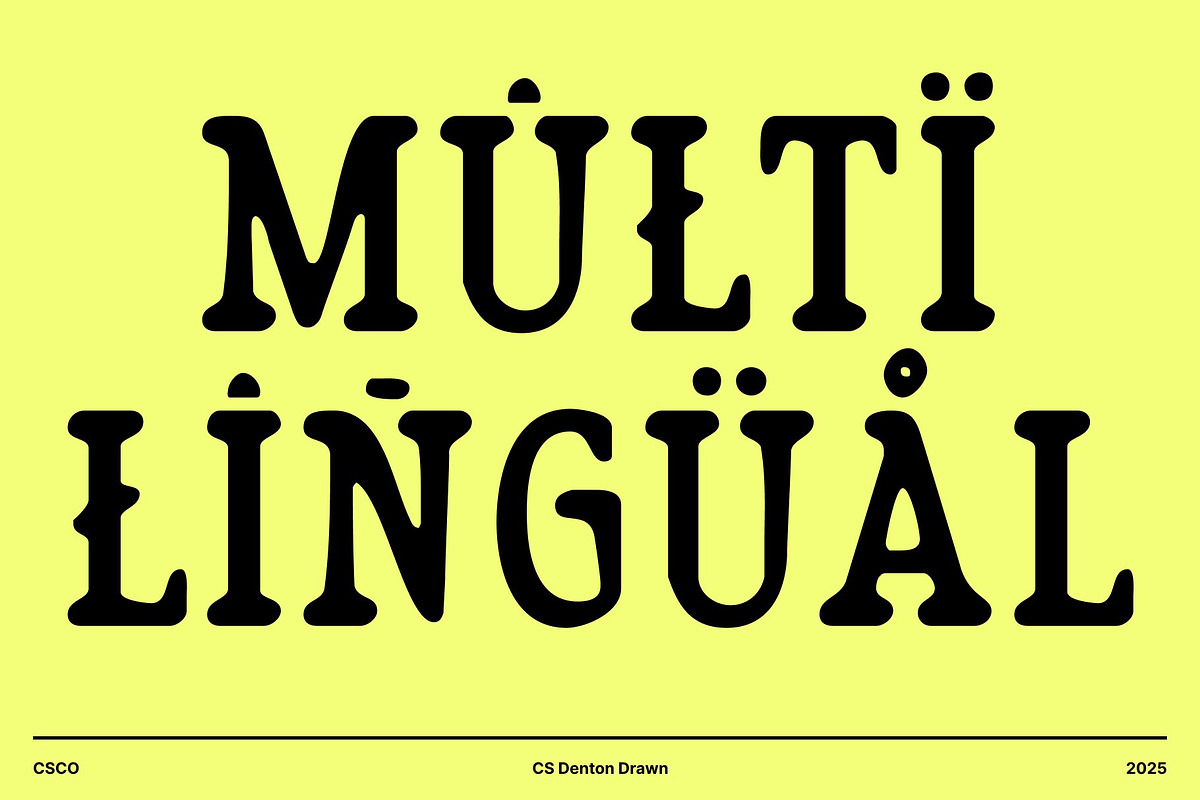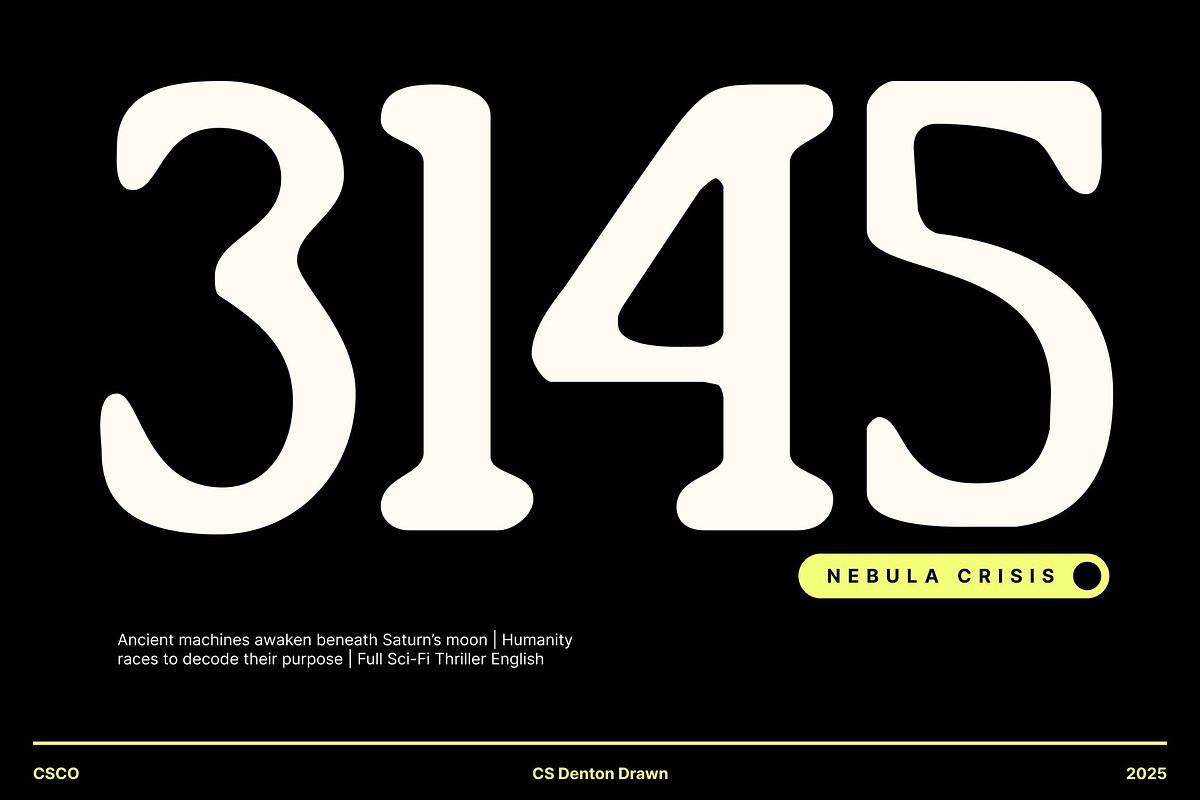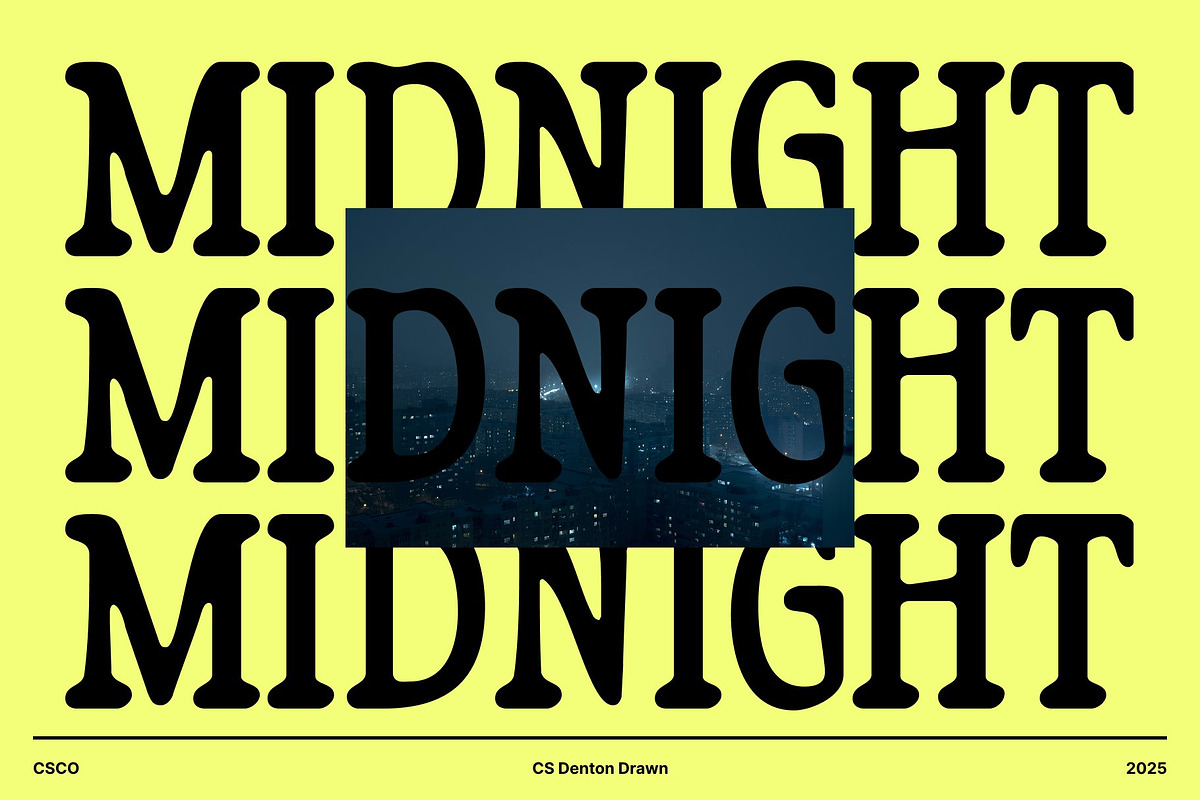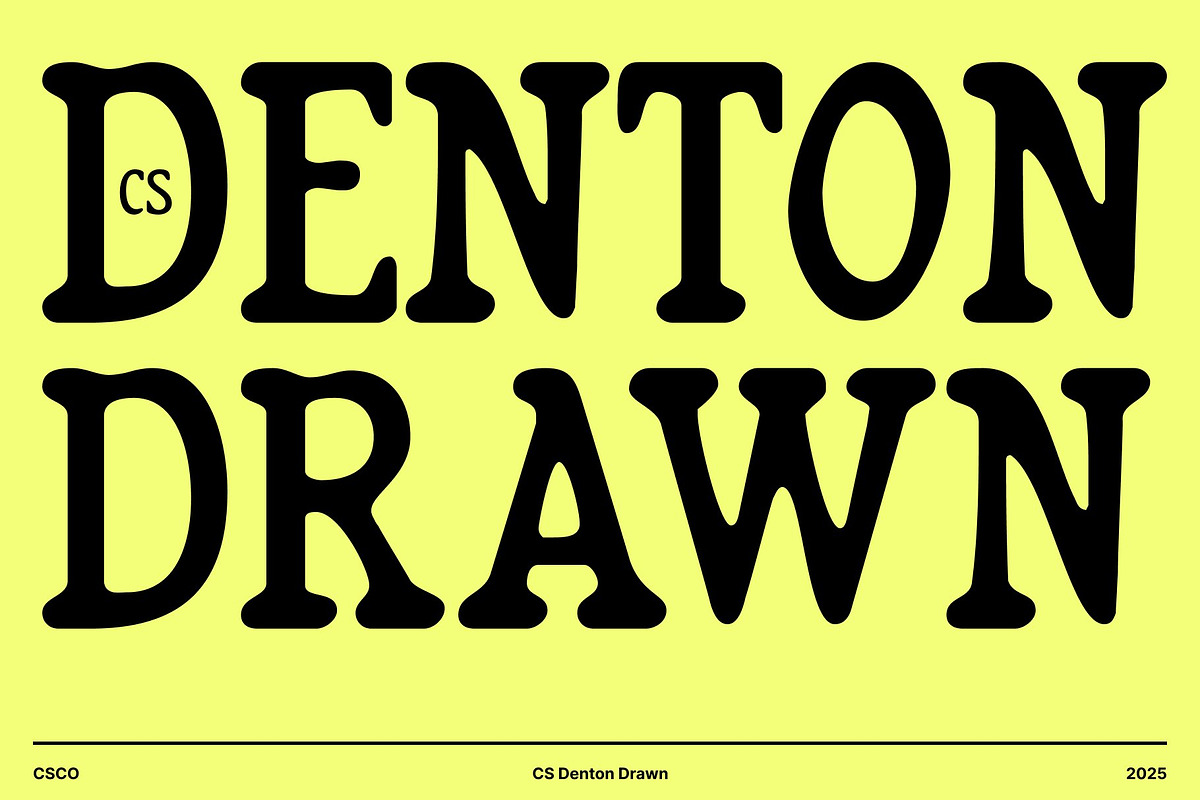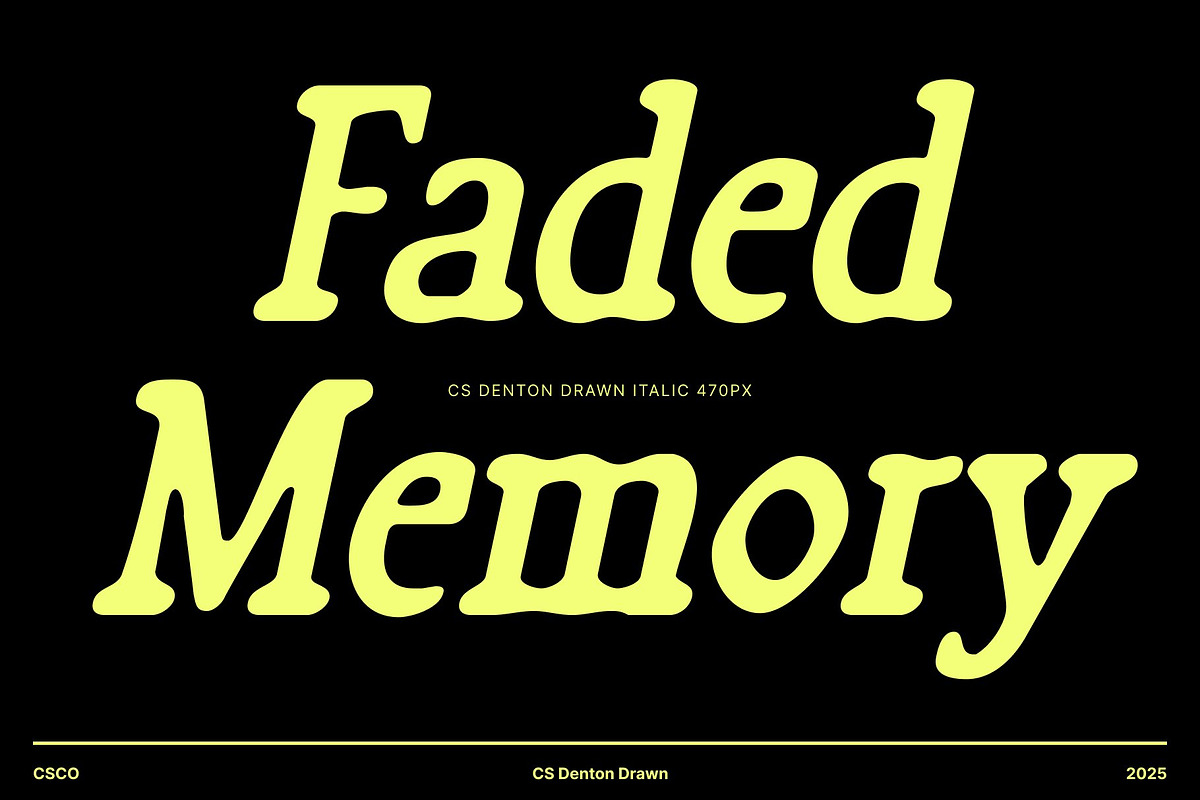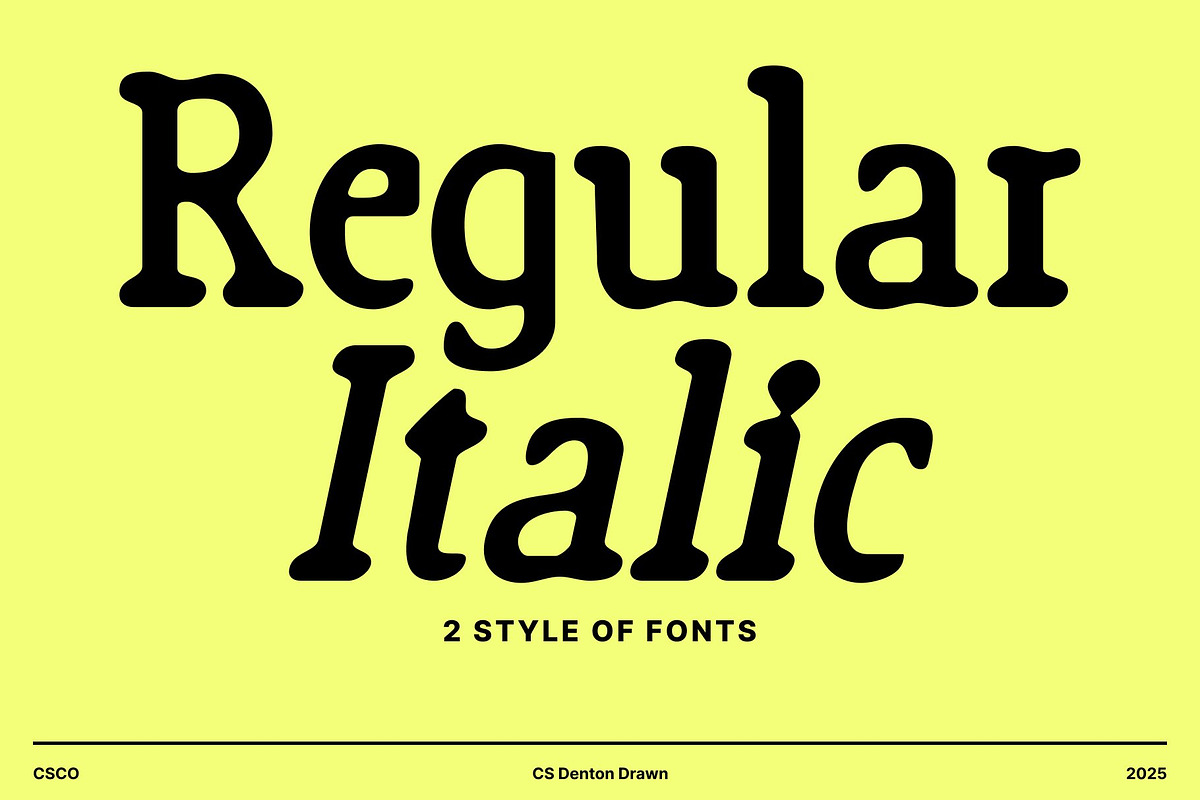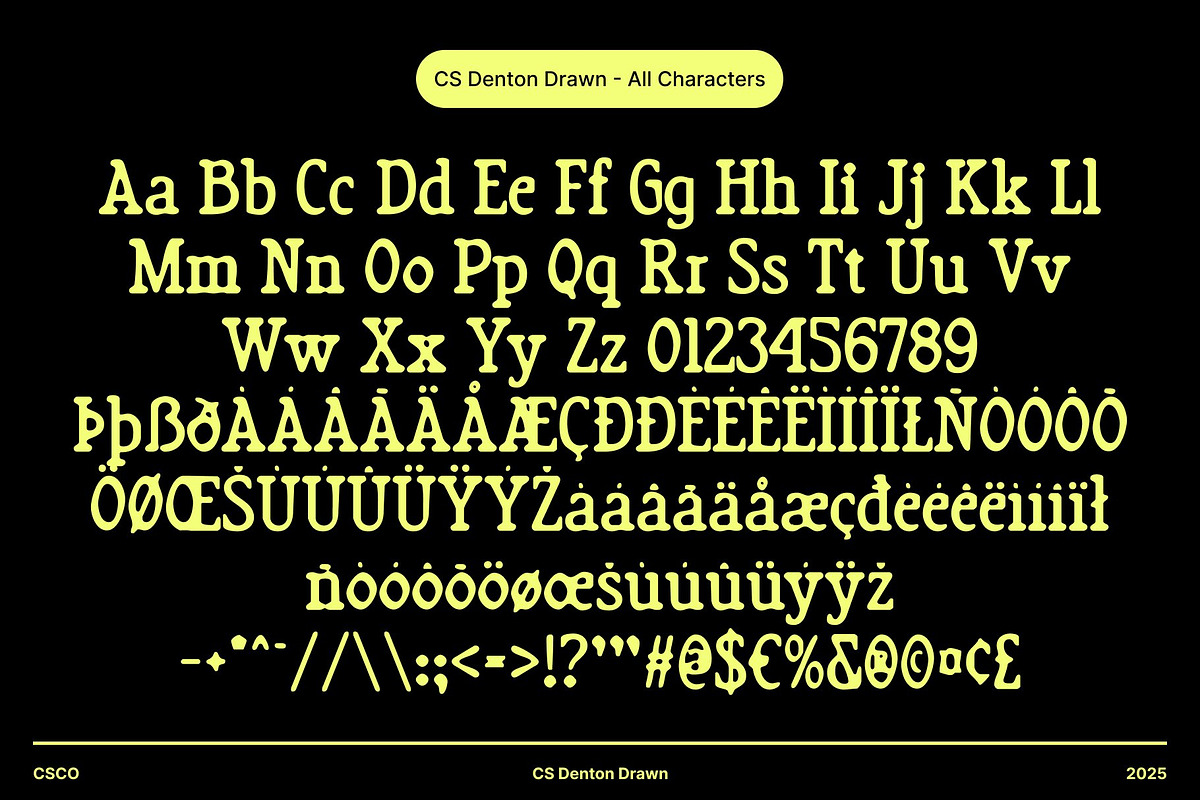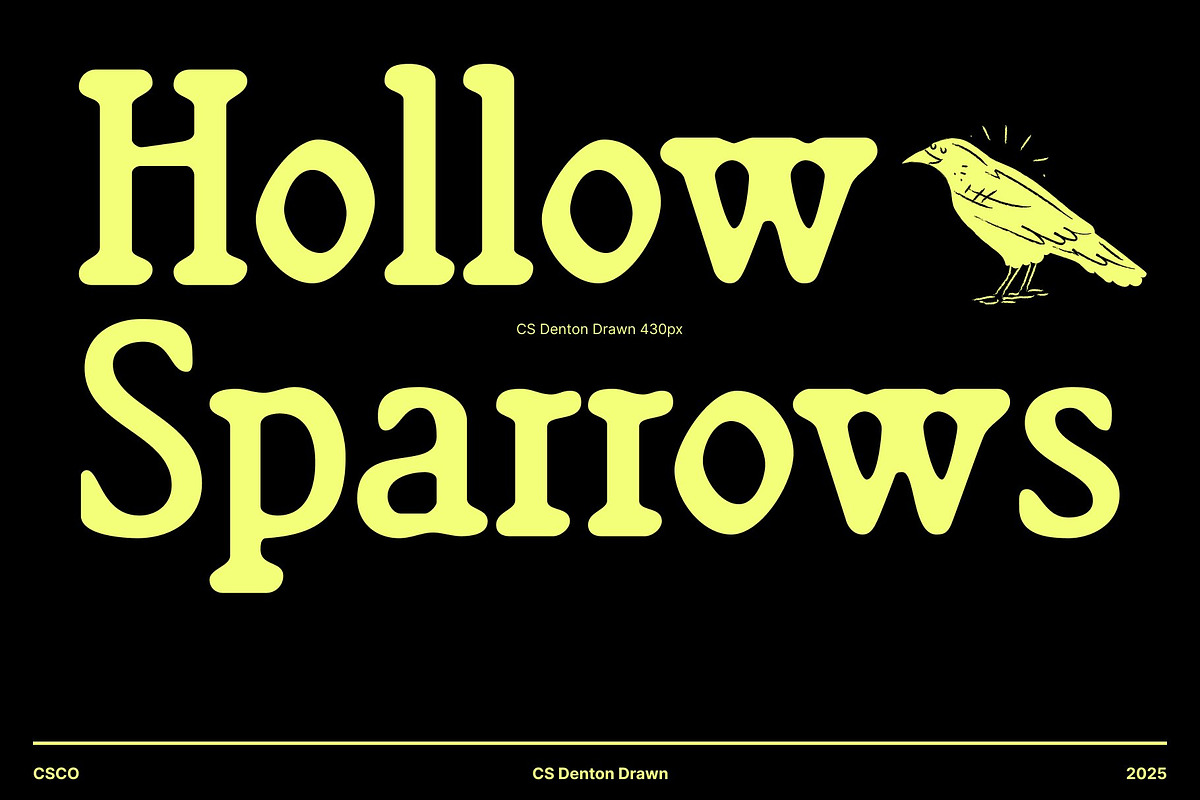
CS Denton Drawn
CS Denton Drawn – Soft Serif with Modern Warmth and Hand-Drawn Texture
Soft Curves for a Modern, Stylish Aesthetic This is a soft serif font designed to bring warmth, charm, and modern style to any visual project. Its smooth curves and rounded serif details create a gentle, inviting appearance that feels contemporary and visually comforting. This unique combination makes it especially appealing for brands and creators who want their designs to look stylish, friendly, and aesthetically pleasing.
Hand-Drawn Texture for an Authentic, Expressive Feel What sets this font apart is its subtle drawn effect an artistic texture that adds depth and a handcrafted touch. Each letter carries soft irregularities that enhance the font’s warmth and personality, making it feel more human and expressive.
Ideal for Branding, Social Media, and Modern Visual Storytelling Designed with versatility in mind, works flawlessly for branding, Instagram posts, quote graphics, lifestyle content, and modern posters. Its soft aesthetic fits perfectly with today’s visual trends, making it a go-to choice for influencers, small businesses, and designers.
A Perfect Blend of Softness, Style, and Creativity With its combination of gentle serif forms and expressive hand-drawn texture, brings a fresh and artistic feel to any project. Whether you’re building a chic brand identity, designing editorial layouts, or crafting social media content, this font adds the perfect balance of softness, modern appeal, and creative personality.